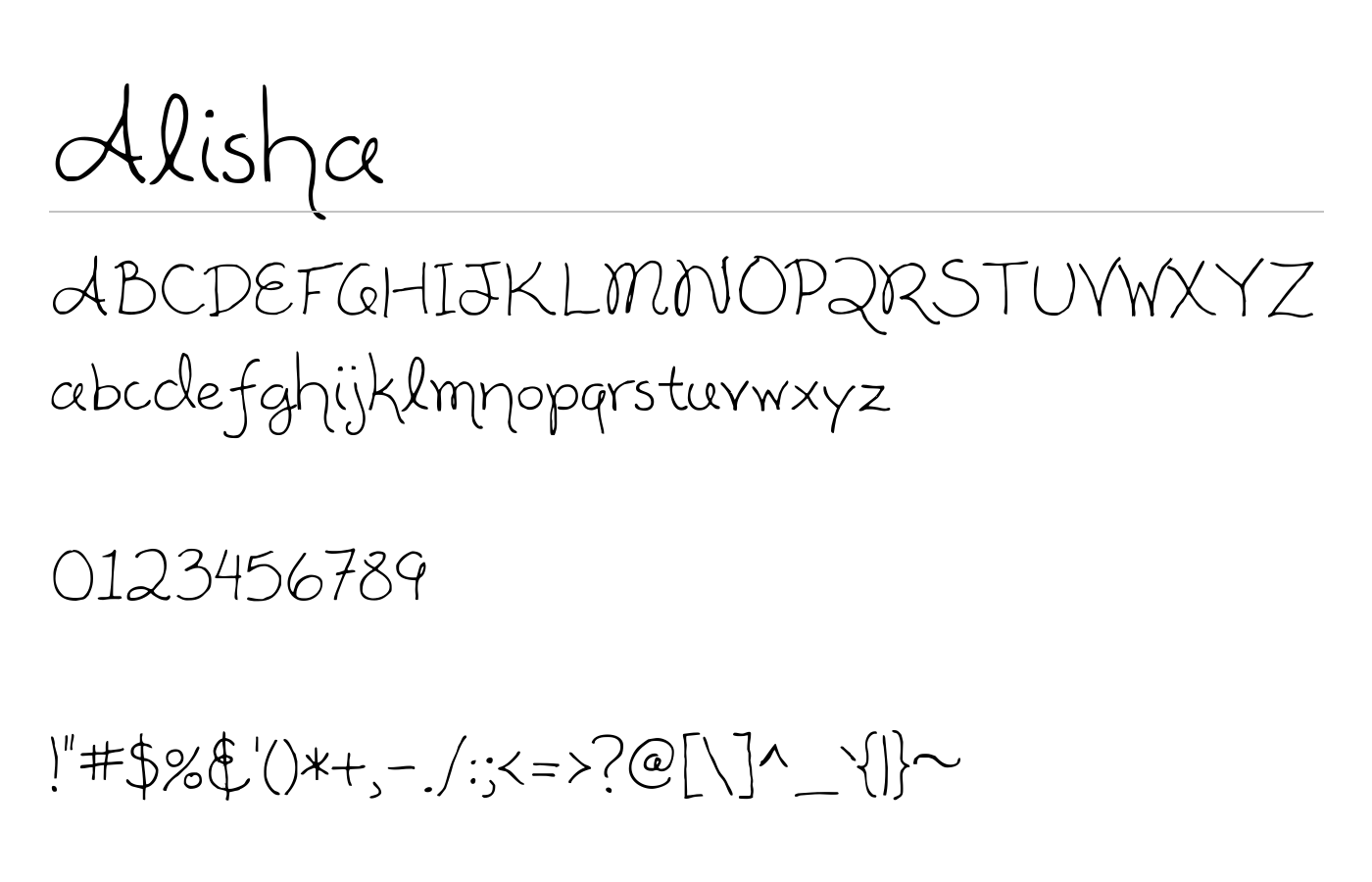
Alisha is a whimsical handwritten font characterized by its thin, delicate strokes and playful, slightly irregular letterforms that give it a charming, personal touch. Its casual and airy style makes it ideal for creative projects like invitations, greeting cards, and branding that seeks a friendly, approachable vibe.
Alisha Font
About Alisha Font